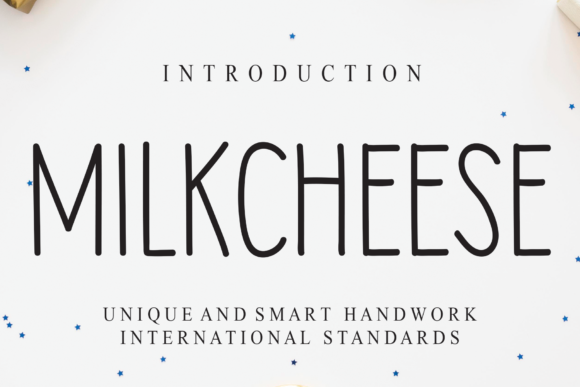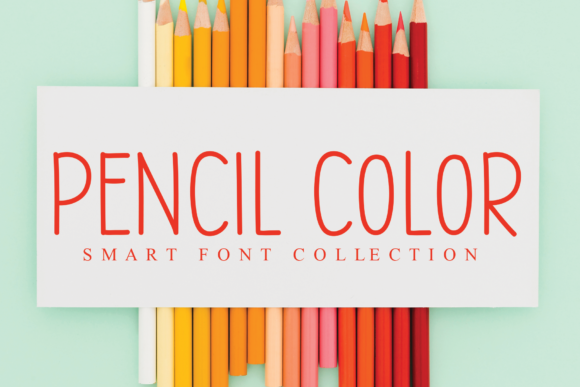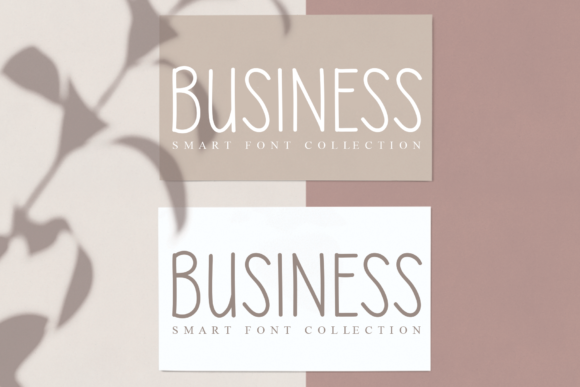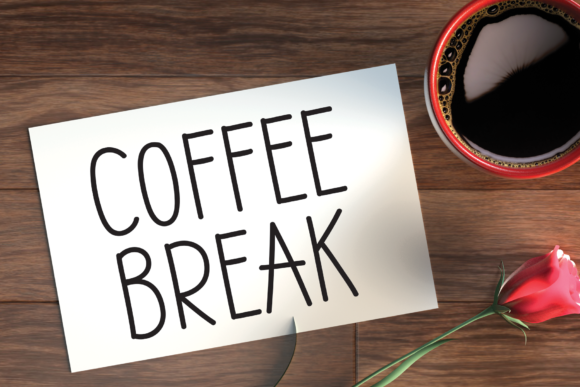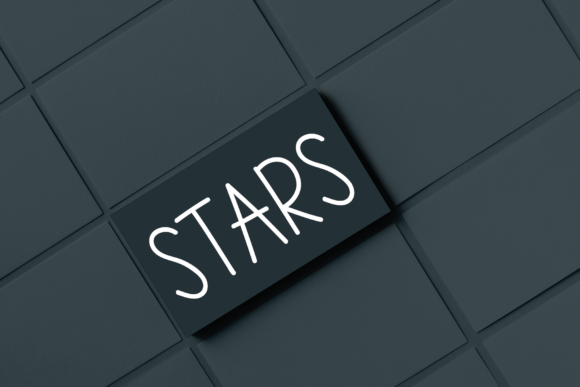
Milkcheese Font
About Milkcheese Font
Milkcheese is a thin and clean handwritten font. It can easily be matched to an incredibly large set of projects, so add it to your creative ideas and notice how it makes them stand out!